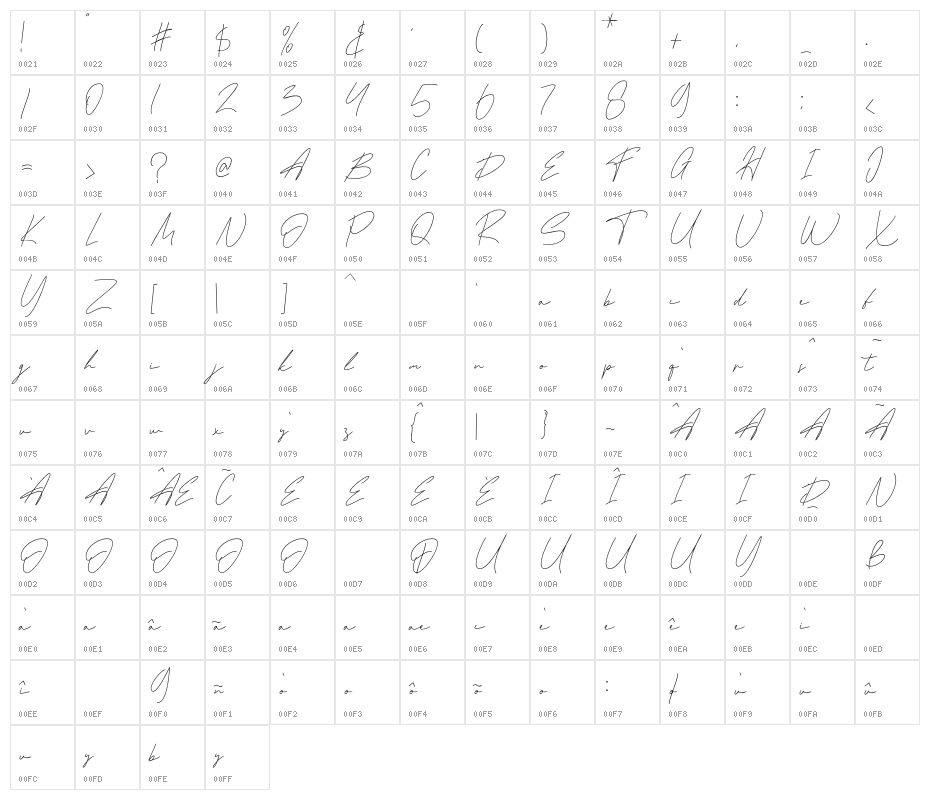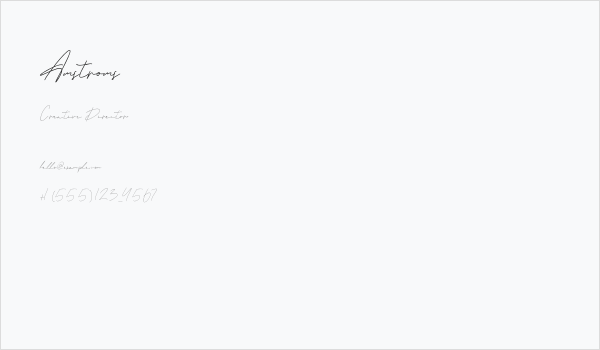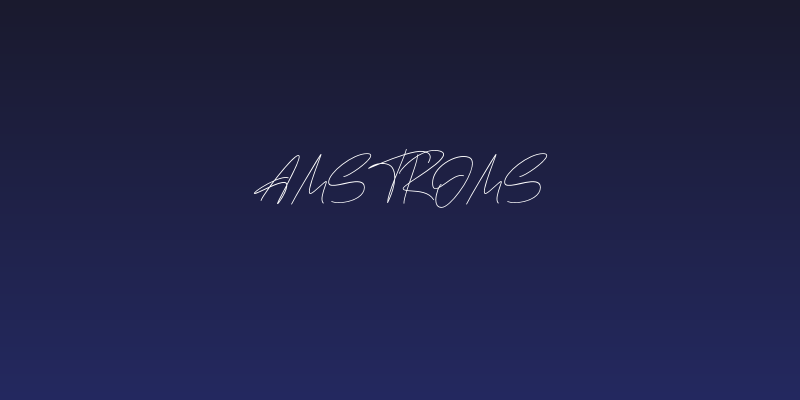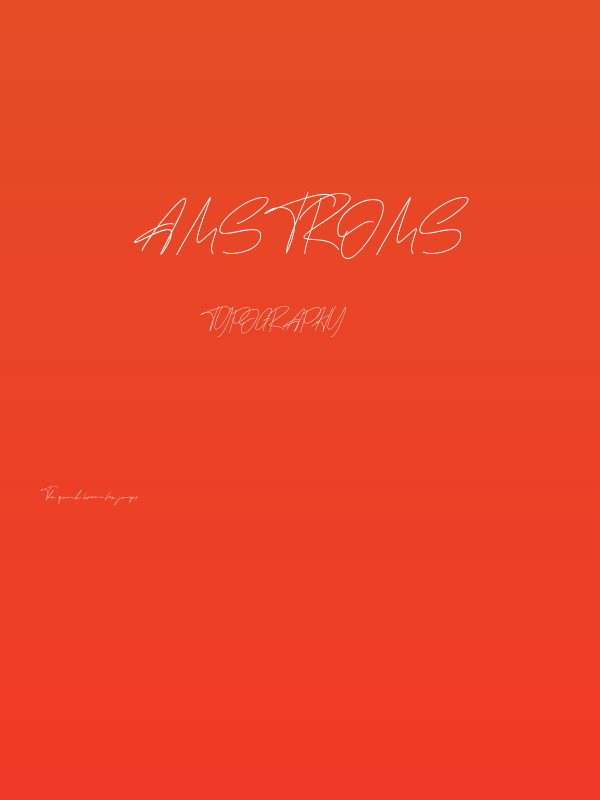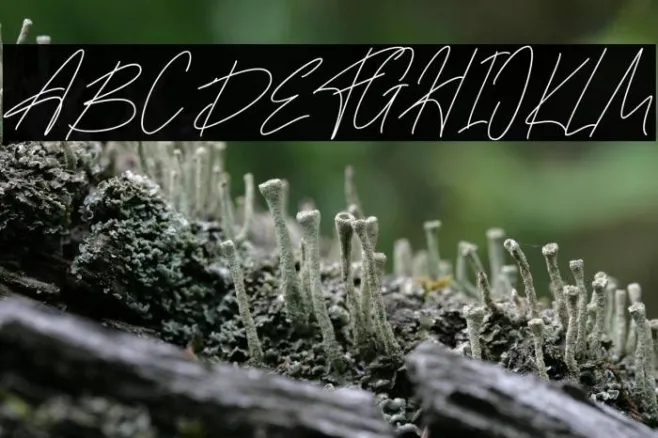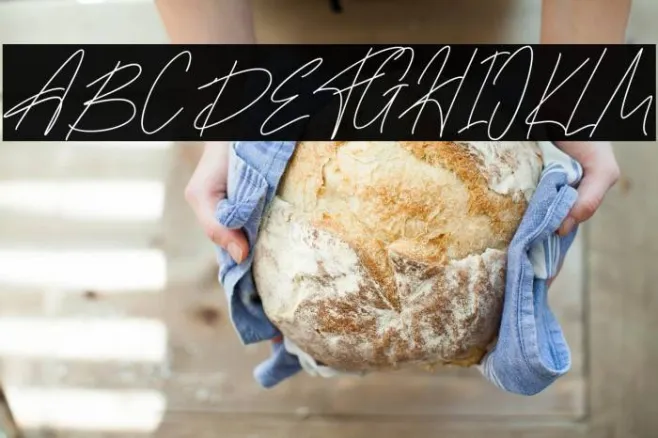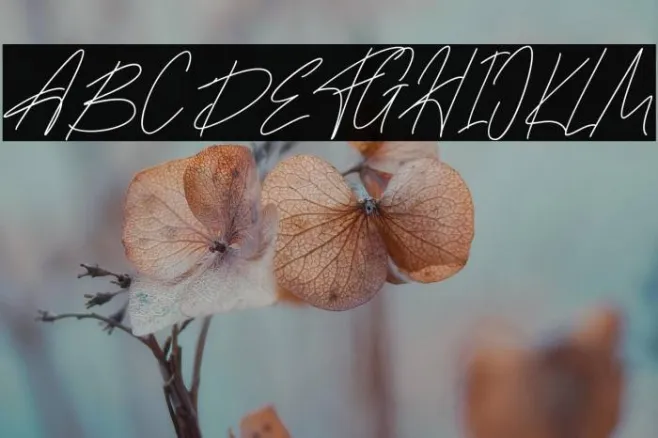
Amstroms Font
Amstroms Description
This font features a fluid and elegant script style, characterized by its smooth, flowing lines and cursive letterforms. The uppercase letters are tall and slightly slanted, giving a sense of movement and grace. The lowercase letters maintain a consistent style, with loops and curves that enhance the handwritten aesthetic. The numerals are distinct yet harmonious with the overall script style, and the special characters are crafted to match the fluidity of the alphabet. This font exudes a sense of sophistication and personal touch, making it ideal for projects that require a personal or elegant feel.
| Overall Style | Elegant, Handwritten |
| Proposed Projects | Ideal for wedding invitations, personal branding, greeting cards, and elegant stationery. |